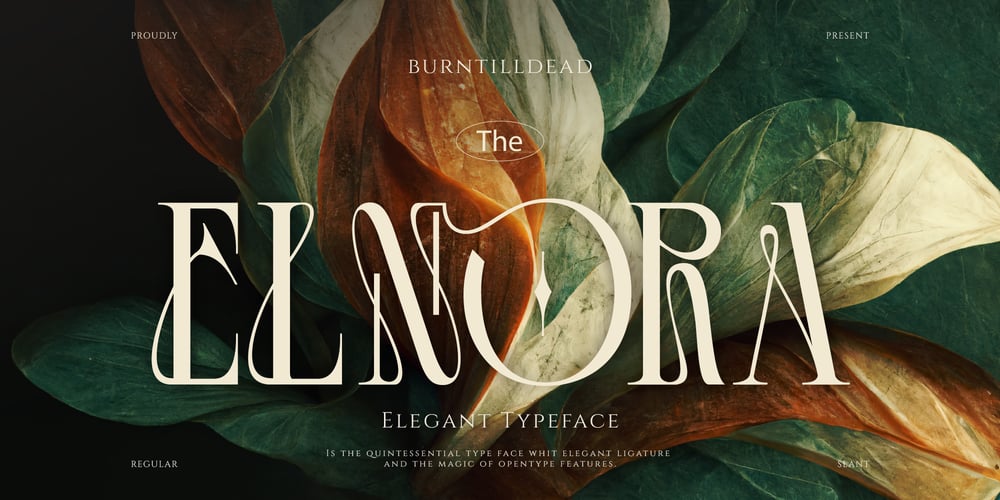
Elnora
Elnora font
Elnora Font Family was designed by Eric Kurniawan and published by Burntilldead. Elnora contains 2 styles and family package options. Introducing Elnora, our quality and classy typeface. Each letter together creates the harmonious of elegance and the uniqueness. Elnora is a stylish serif with curved lines that form beautiful letters. Perfect for branding, invitations, and editorial design, this typeface brings a touch of classic beauty to modern aesthetics.Features: A – Z set Number Punctuation Ligature Multilingual